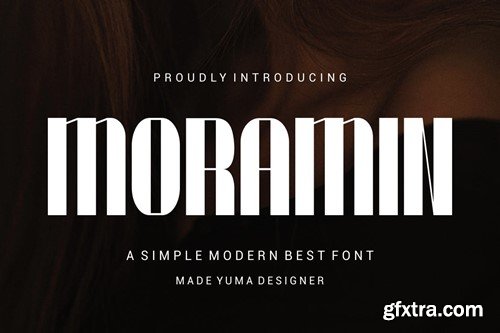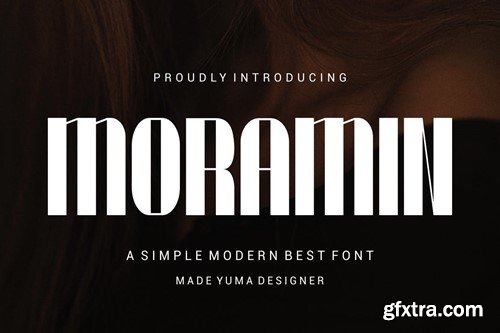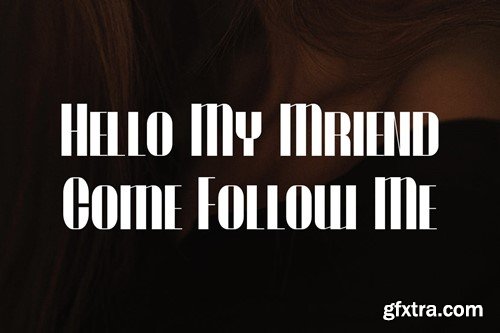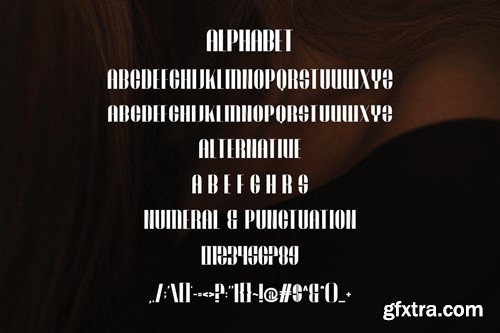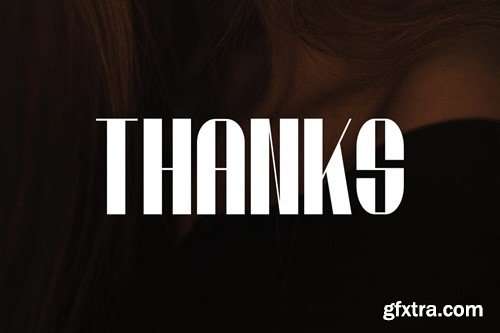
莫拉敏 - 现代无衬线字体 7V959GU
Moramin - Modern Sans Serif Font
Introducing Moramin Modern Sans Serif. Moramin is a modern and simple font, best used as a display for headings, logos, branding, magazines, product packaging and invitations. Moramin come with clean lines and smooth curves give any project an extra touch of class. What you get: Thank you.